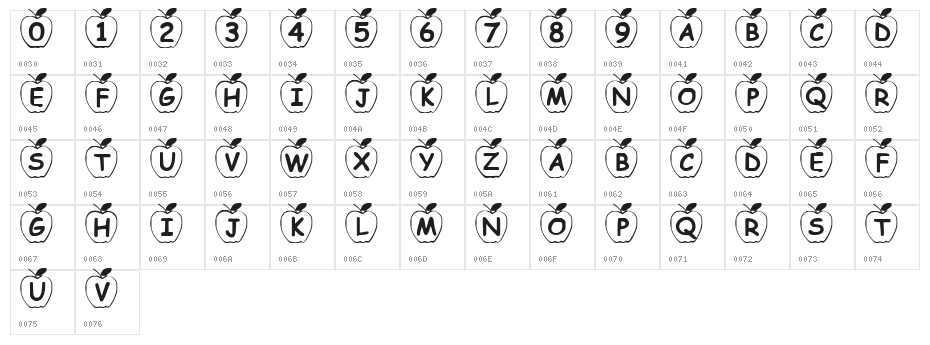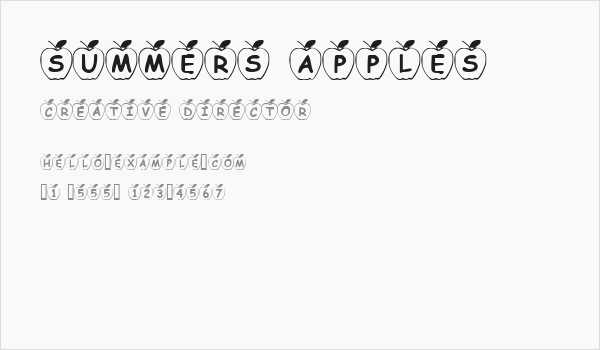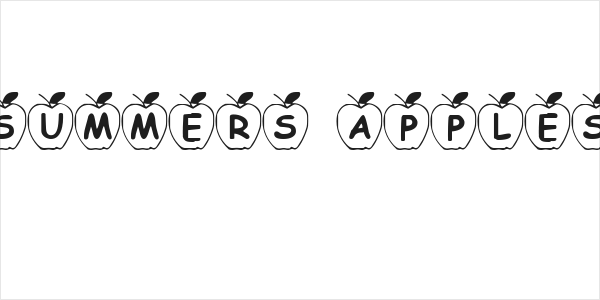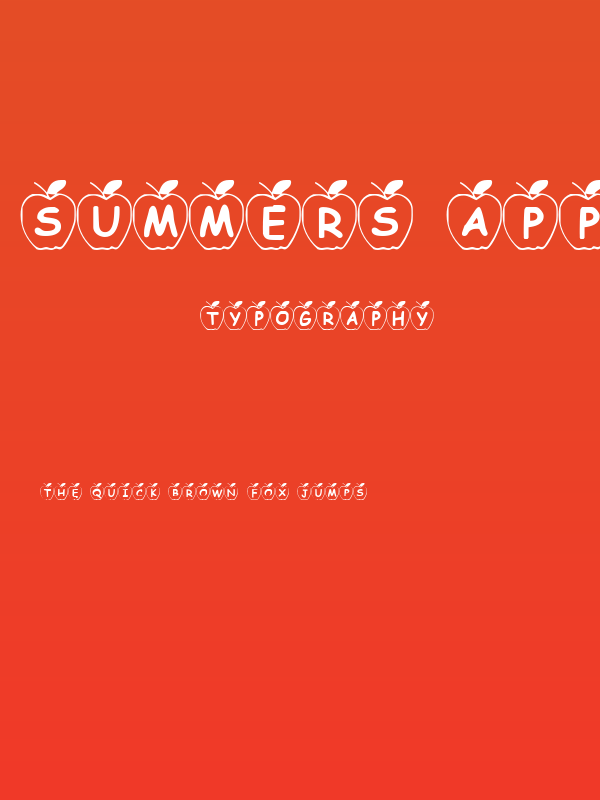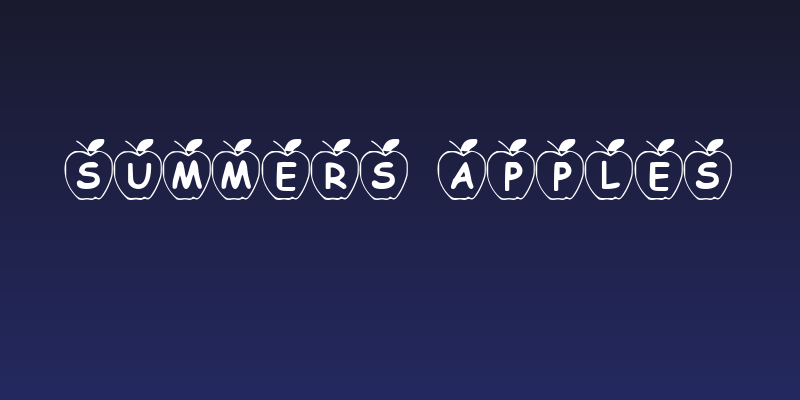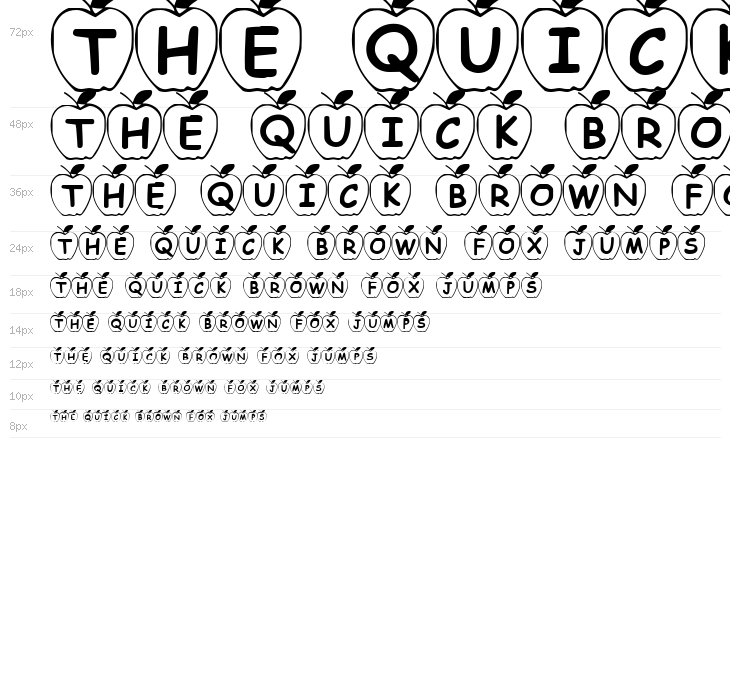
Summers Apples Font
Summers Apples Description
This playful and decorative font features each character enclosed within an apple shape, complete with a stem and leaf, adding a whimsical touch to the design. The letters are bold and rounded, providing a friendly and approachable feel. The consistent use of the apple motif creates a cohesive and thematic appearance, making it ideal for projects that require a fun and engaging visual element. The numbers and special characters maintain the same style, ensuring uniformity across all text elements. This font is perfect for children's materials, educational content, or any project that seeks to incorporate a lighthearted and cheerful aesthetic.
| Use Case | Headlines, Logos, Themed Invitations |
| Proposed Projects | Ideal for children's books, educational materials, playful branding, and themed event invitations. |